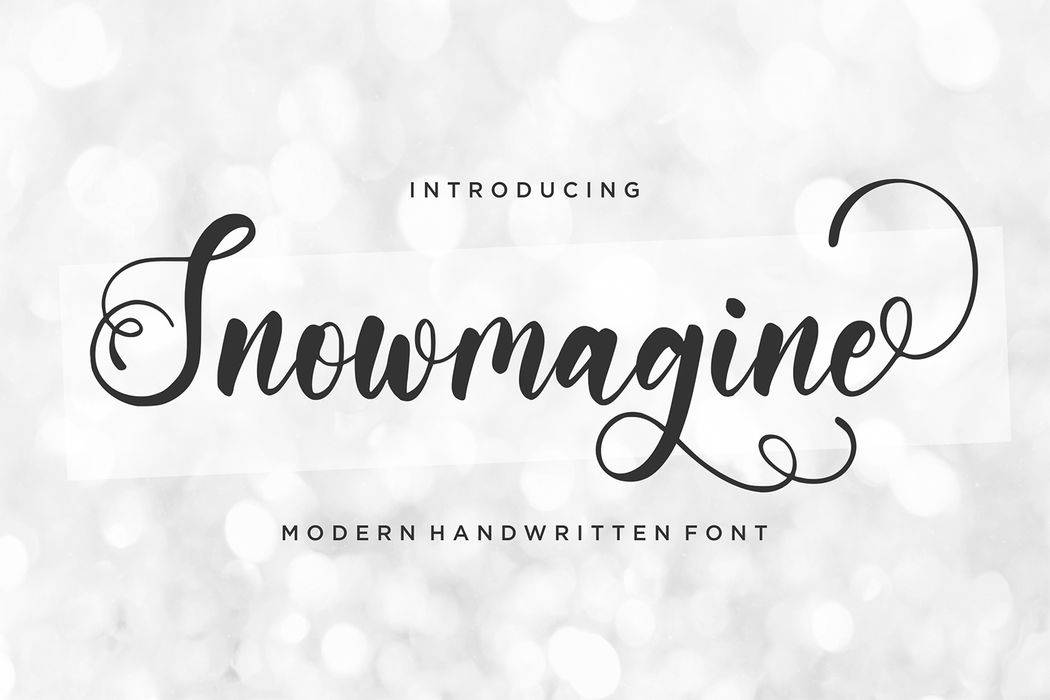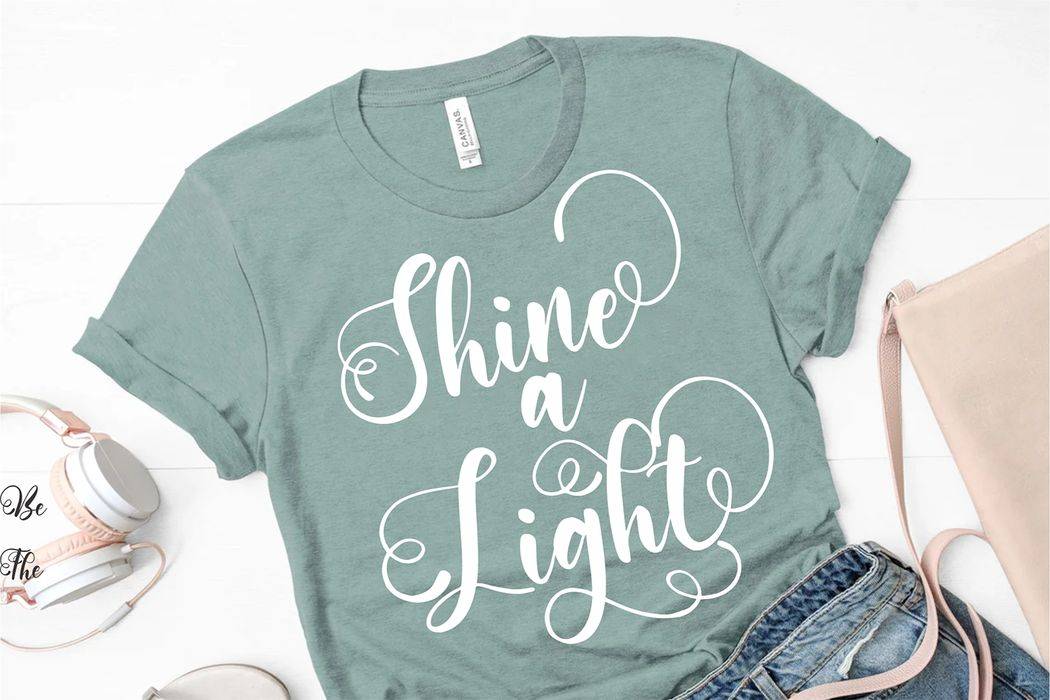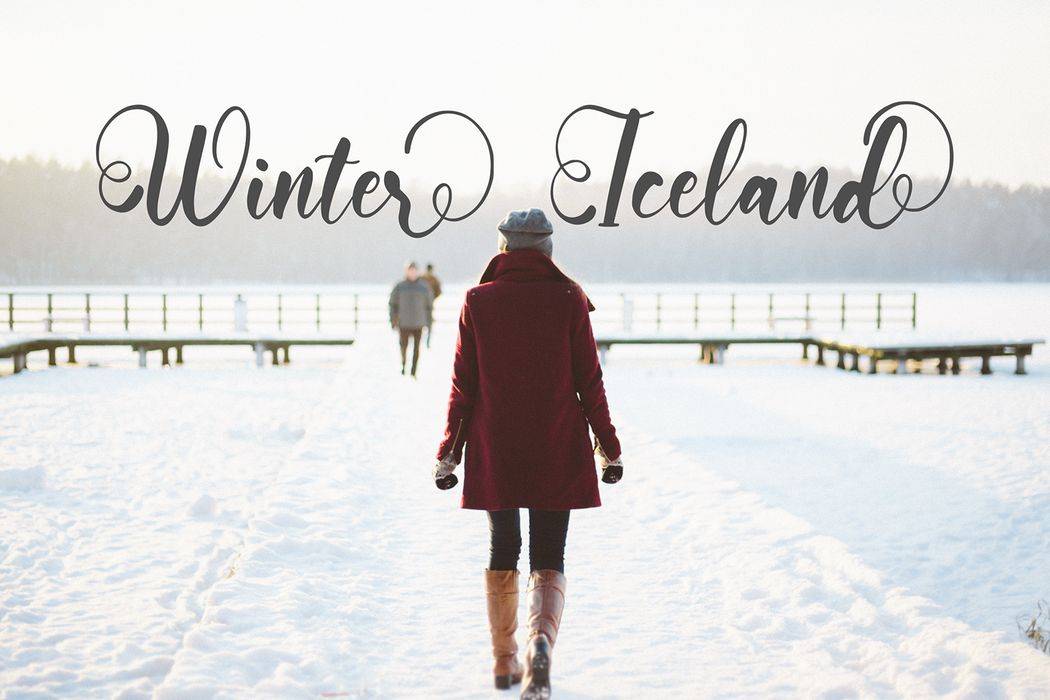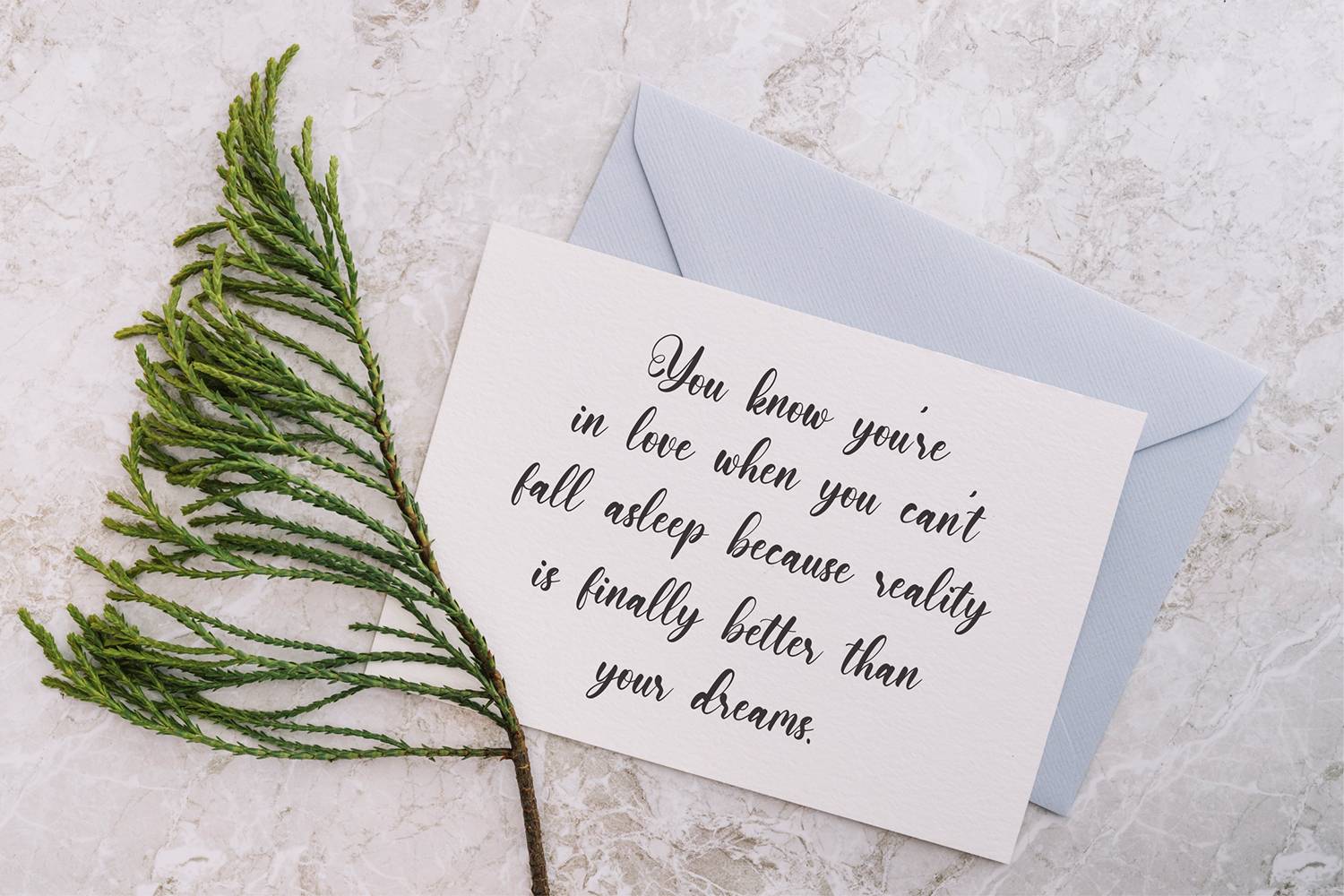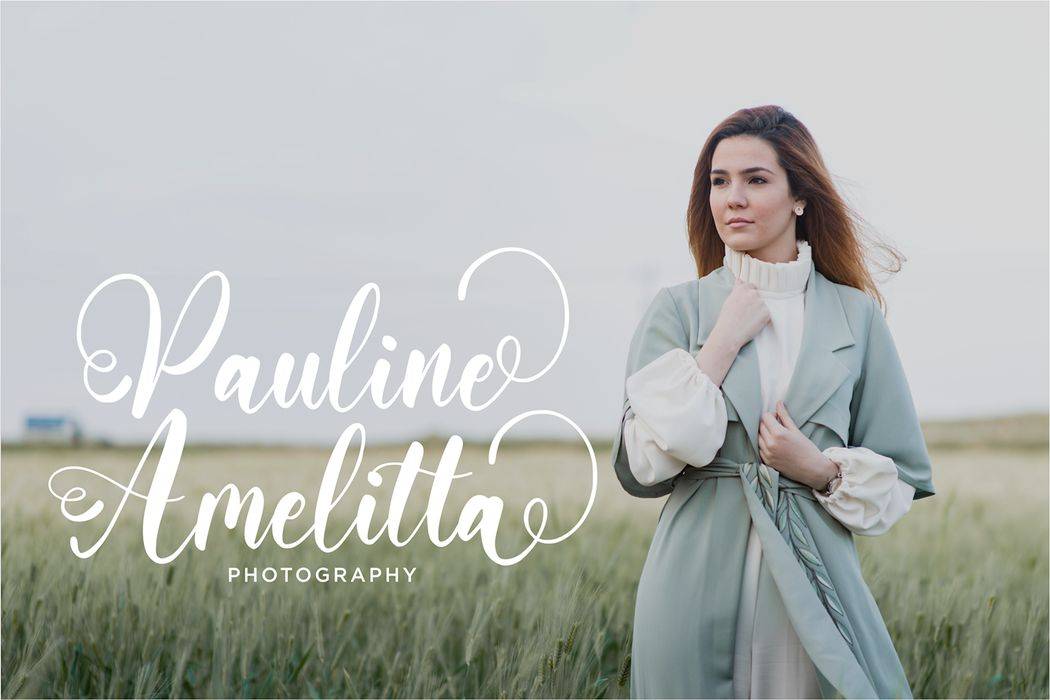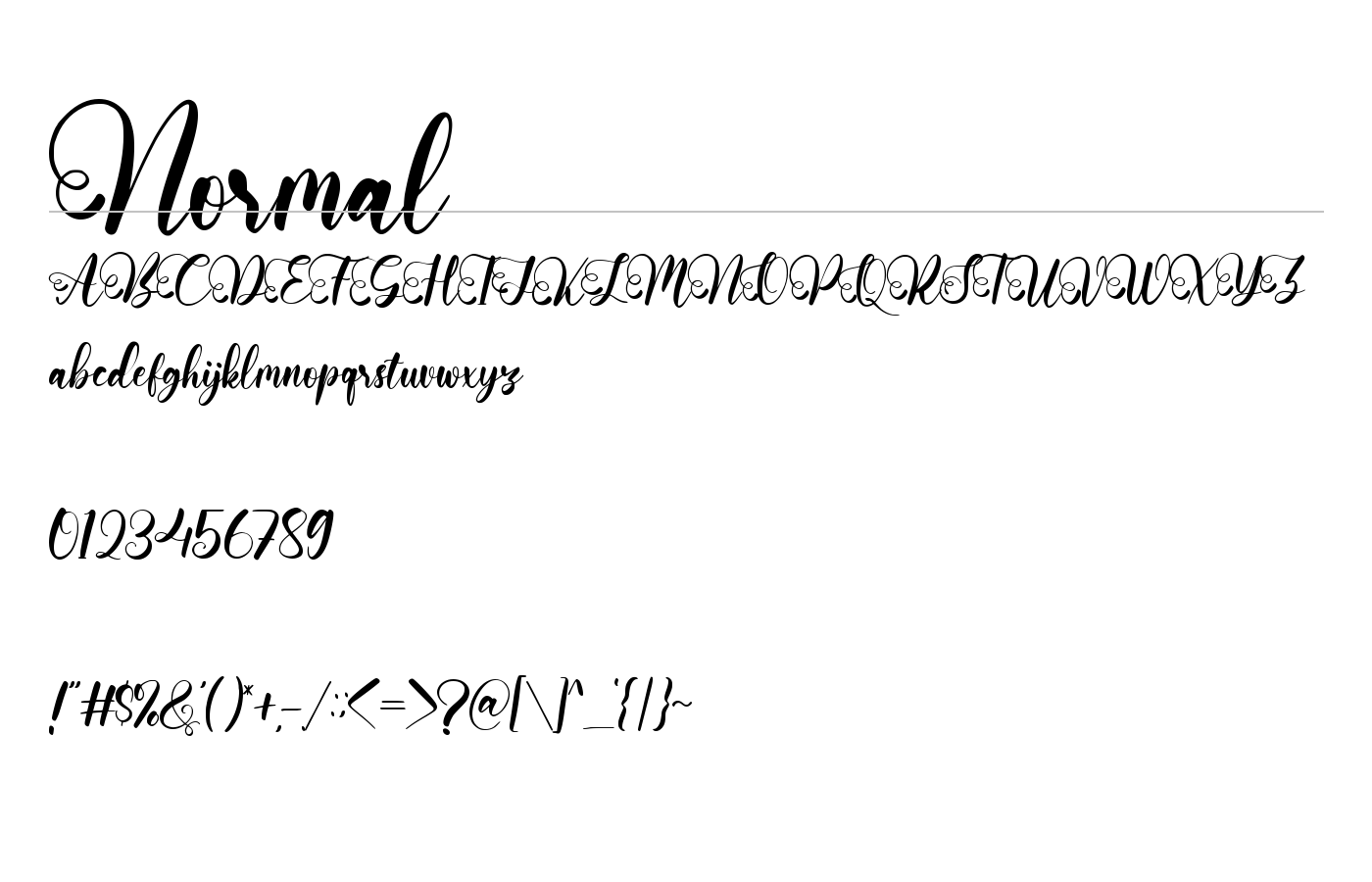
Snowmagine is an elegant script font featuring fluid, flowing strokes with a mix of bold and delicate lines, creating a graceful and sophisticated appearance. Its decorative uppercase letters are ornate and intricate, while the lowercase characters are more subdued yet stylish. This font works beautifully for branding, invitations, and headlines where a touch of luxury and artistic flair is desired.
Snowmagine Font
About Snowmagine Font